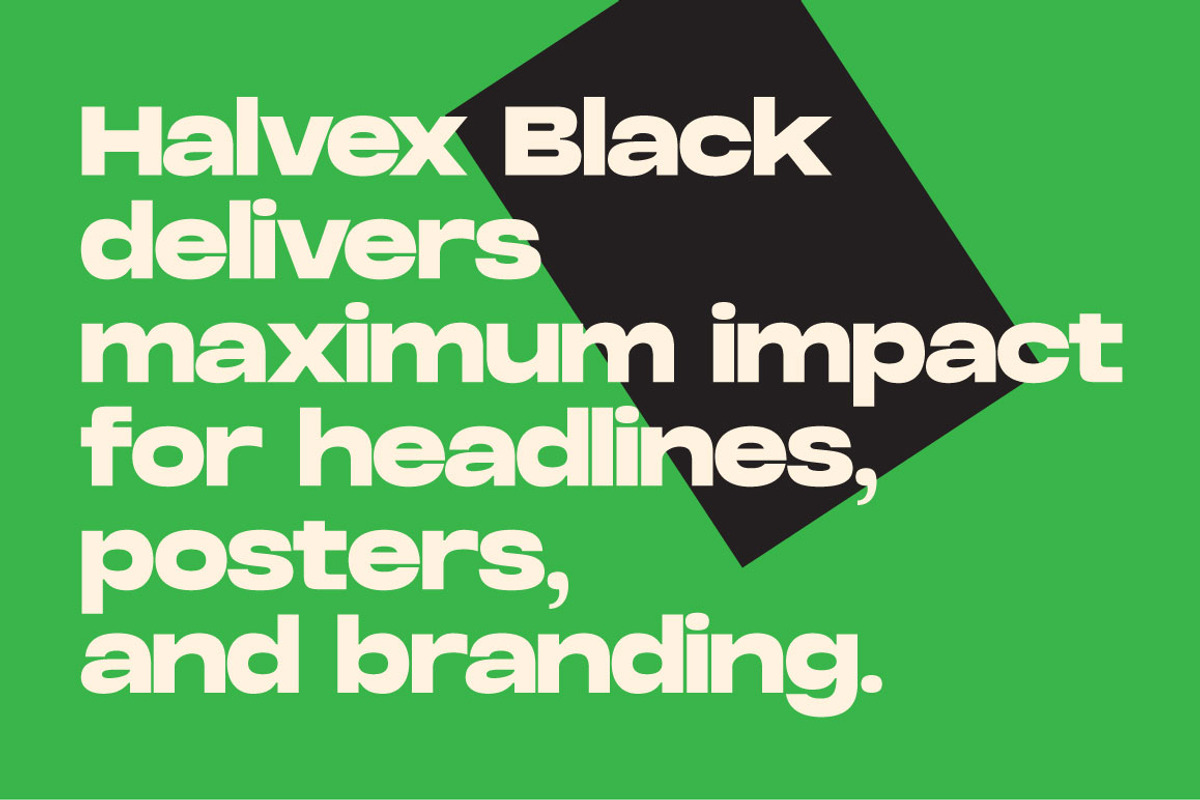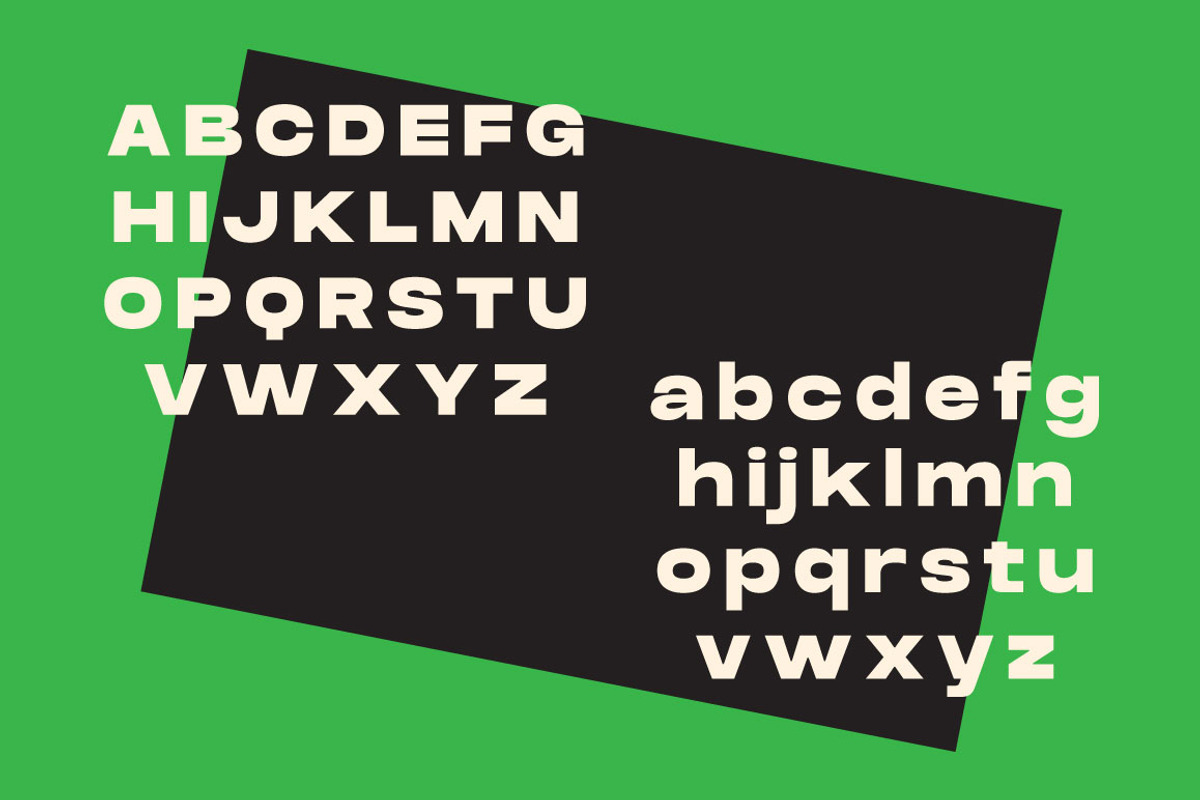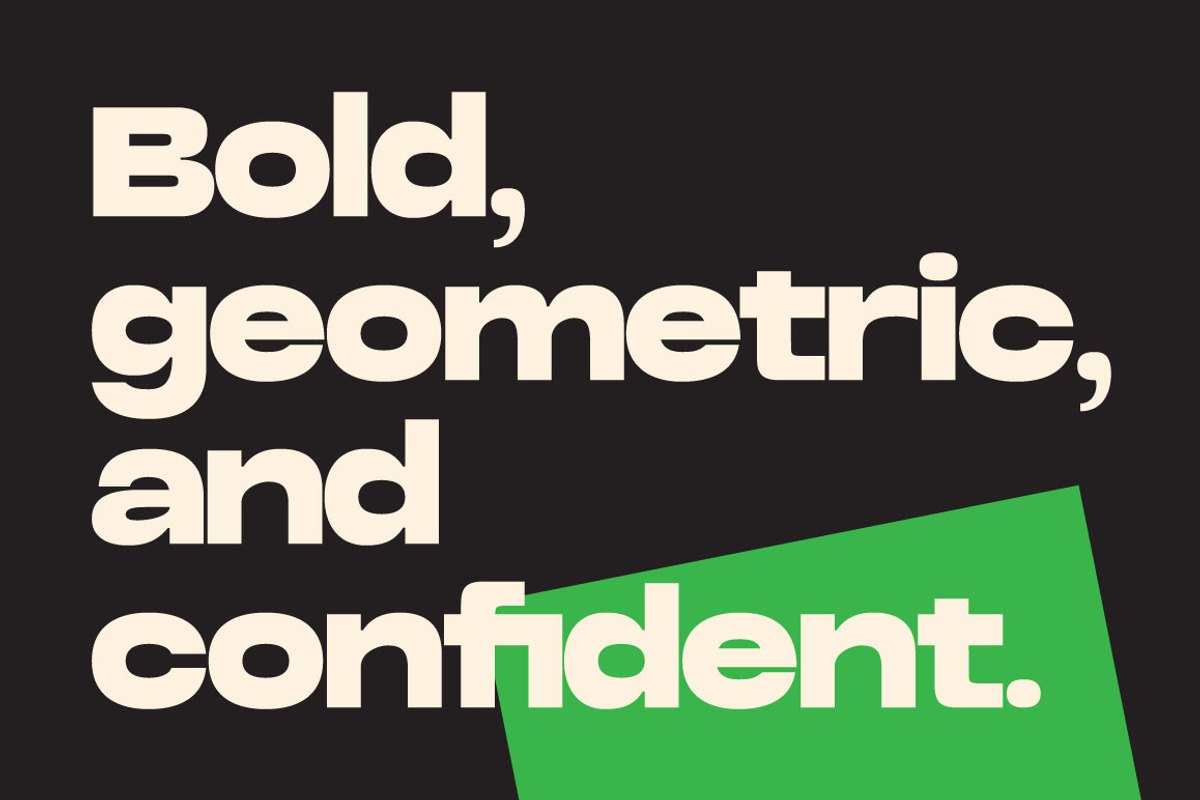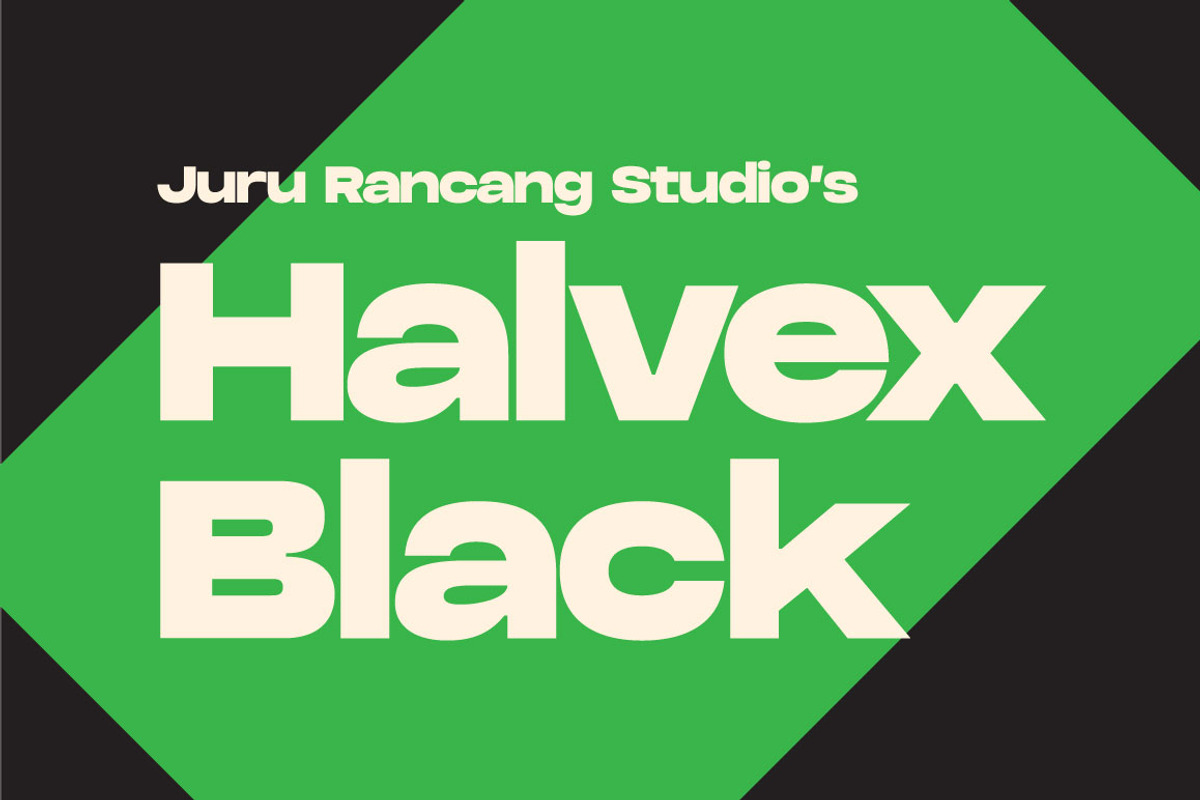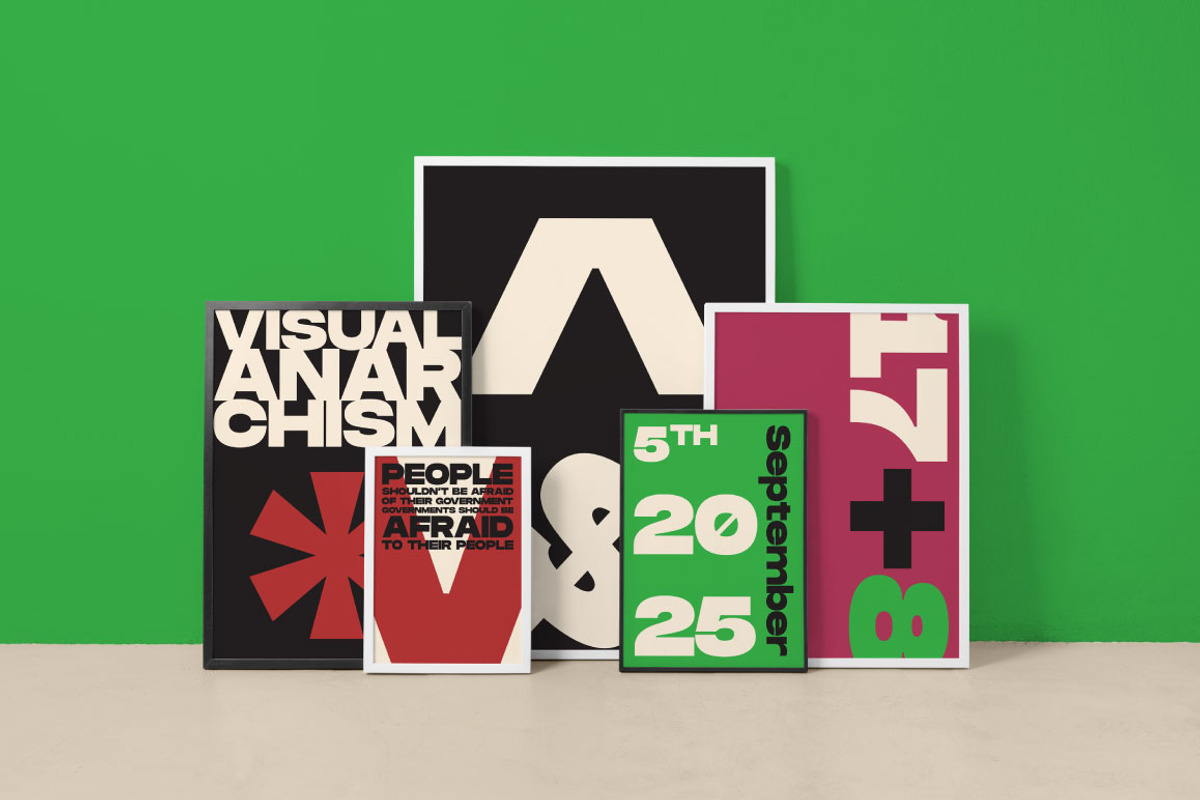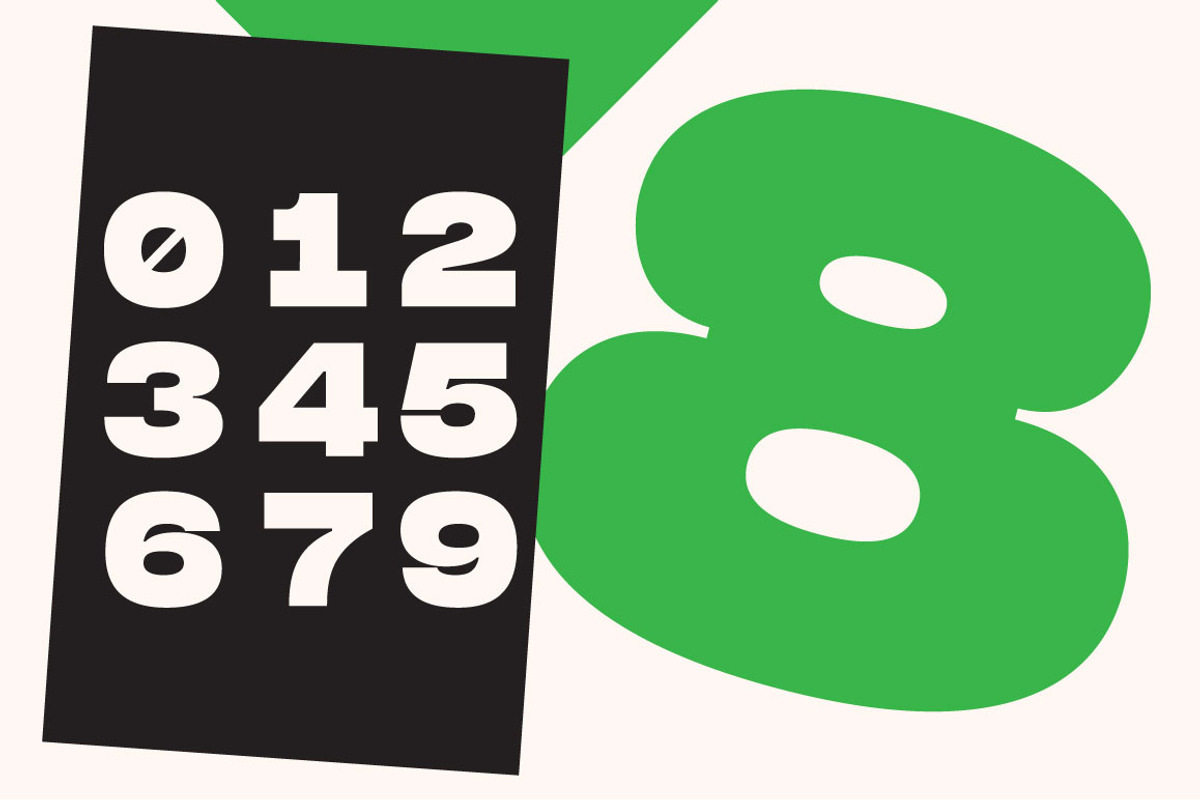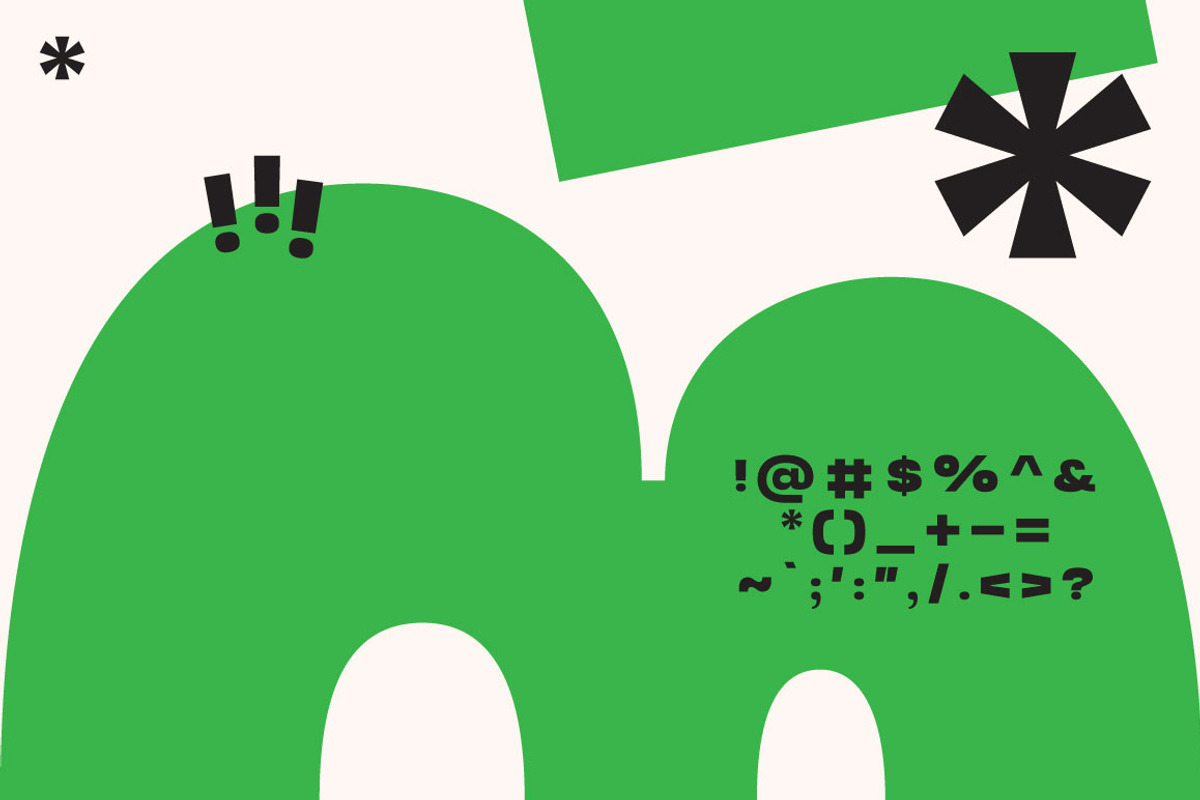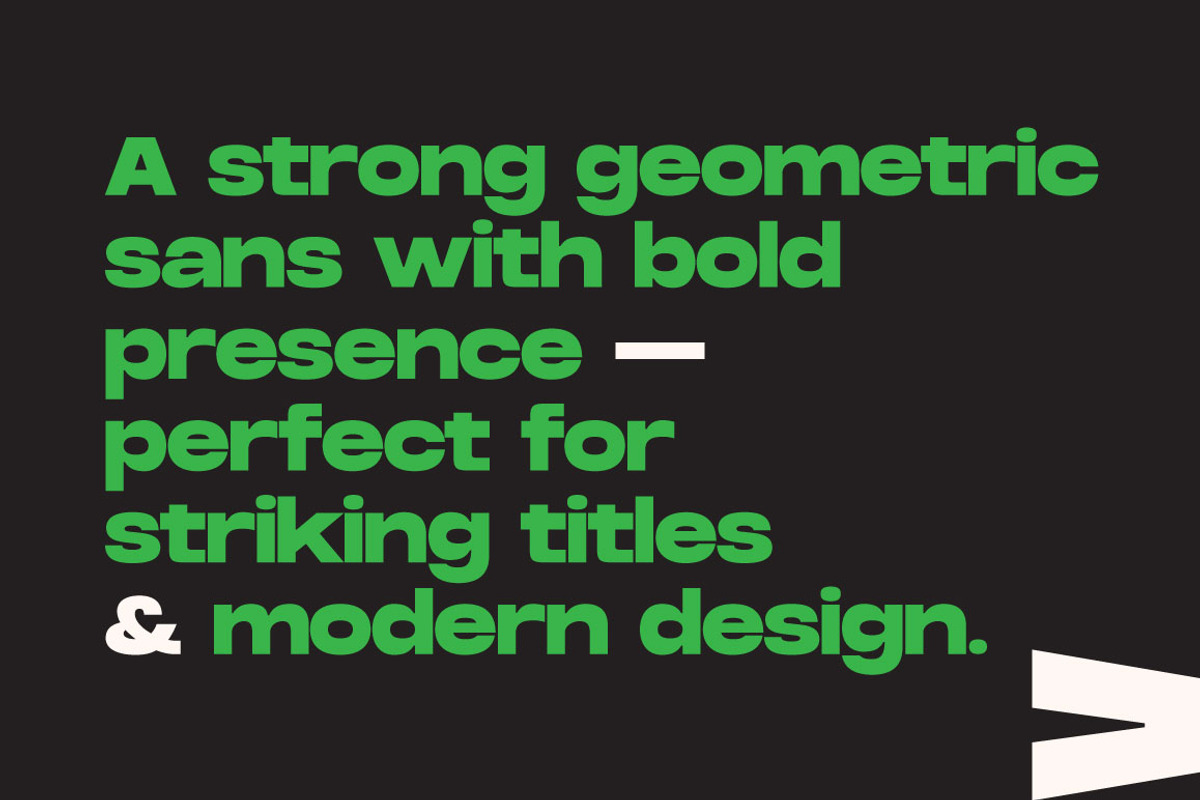
Halvex Black – Bold Geometric Sans
Halvex Black is a bold geometric sans serif typeface designed for maximum impact. With wide proportions, strong letterforms, and clean construction, this font brings a confident and modern look to any project.
Perfect for headlines, posters, logos, and branding, Halvex Black combines functionality with a bold personality. Its uppercase, lowercase, and numbers are crafted with consistency and balance, making it versatile across digital and print designs.
Whether you’re working on editorial layouts, social media graphics, packaging, or display design, Halvex Black ensures your message stands out with strength and clarity.